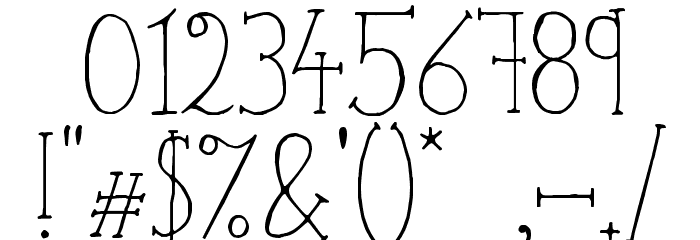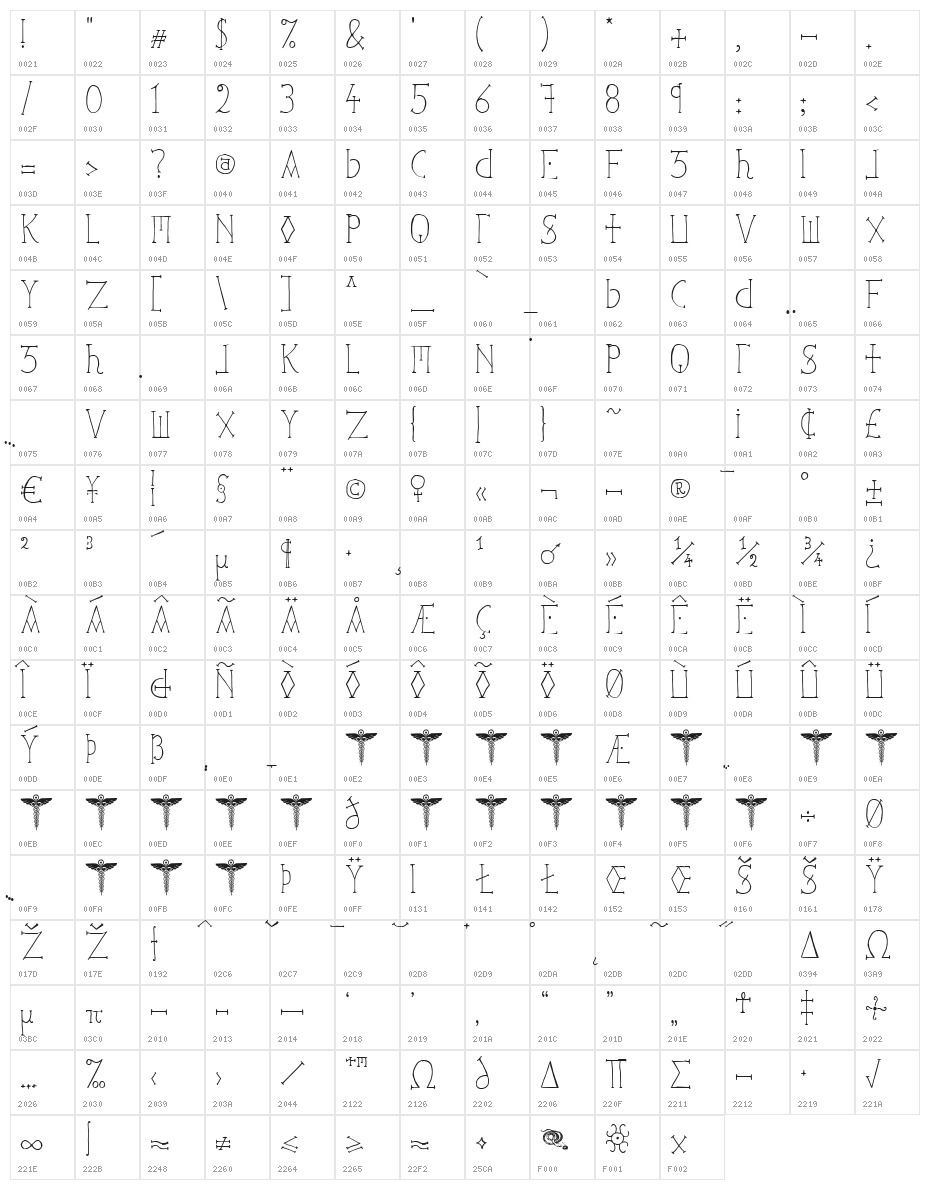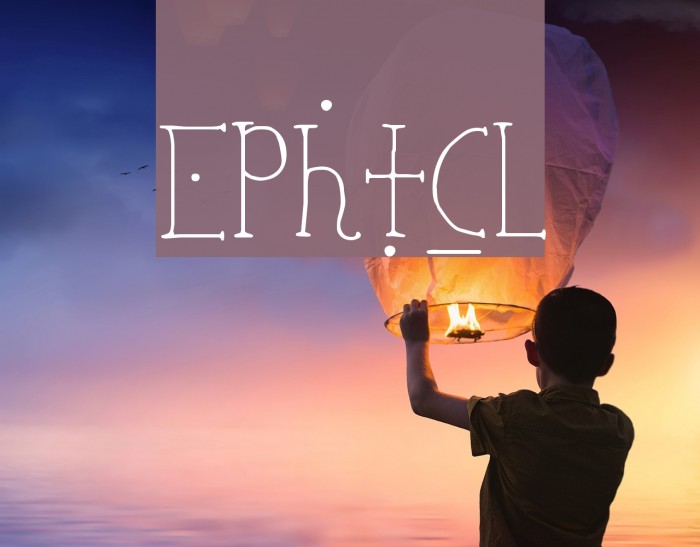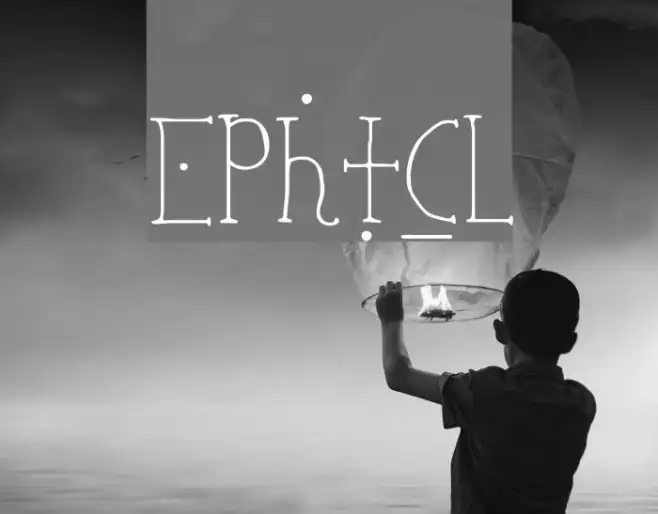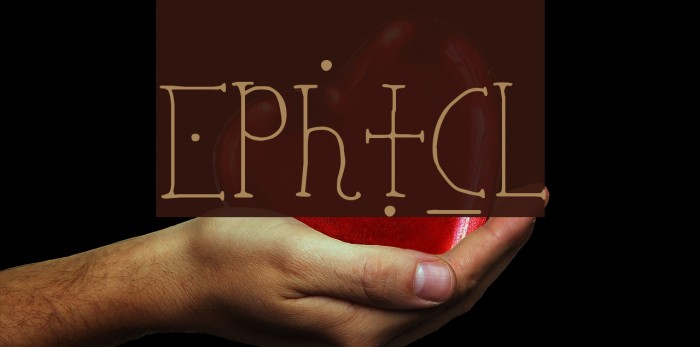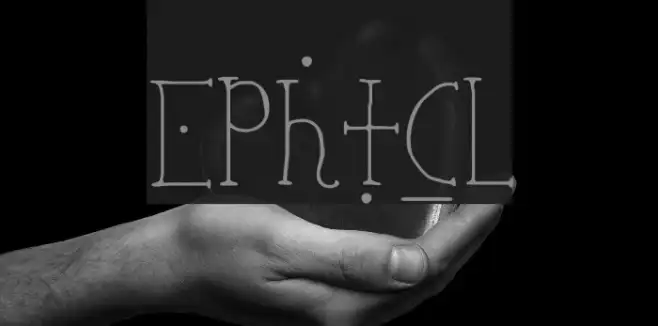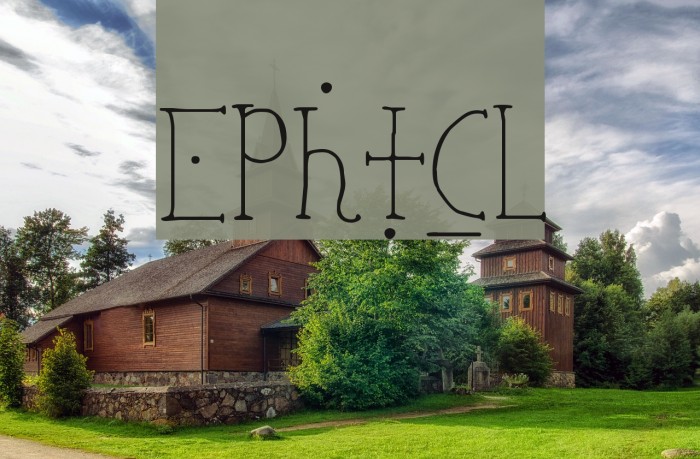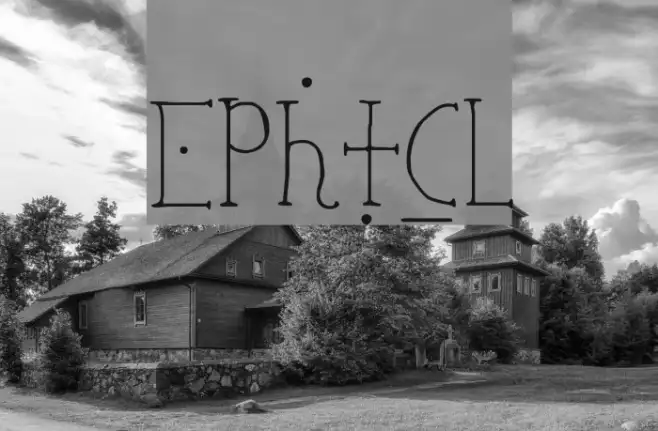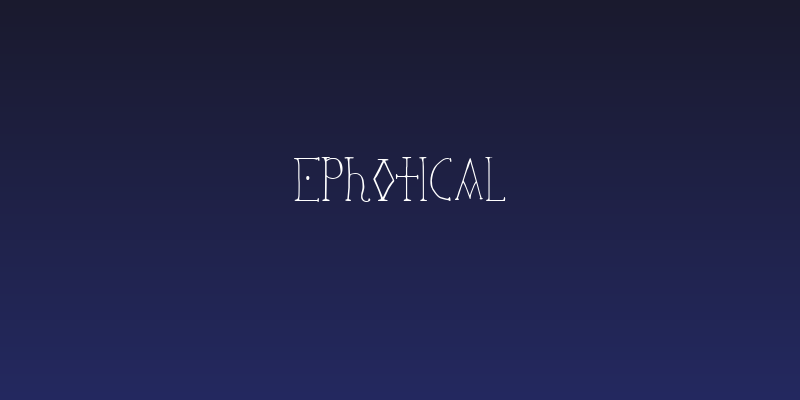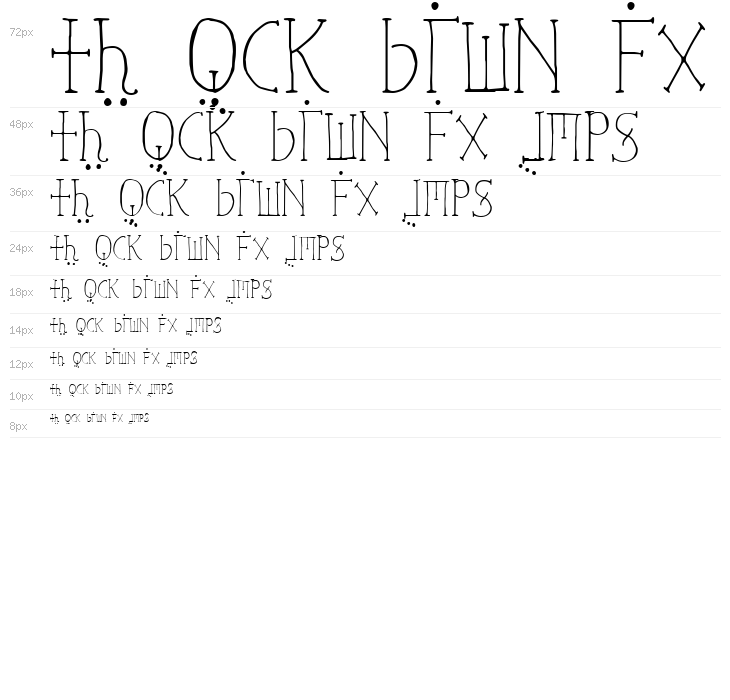
Ephotical Font
Ephotical Description
This font exhibits a unique and artistic style, characterized by its thin, elongated strokes and distinctive geometric elements. The uppercase letters feature a mix of sharp angles and smooth curves, creating an intriguing visual contrast. The lowercase letters maintain a similar aesthetic, with some characters displaying playful loops and unexpected flourishes. Numbers are consistent with the overall design, offering a cohesive look. Special characters are thoughtfully integrated, maintaining the font's artistic flair. The overall appearance is both modern and whimsical, making it suitable for creative projects that require a touch of elegance and originality.
| Use Case | Headlines, Logos, Artistic projects |
| Proposed Projects | Ideal for artistic posters, creative branding, unique invitations, and modern editorial design. |